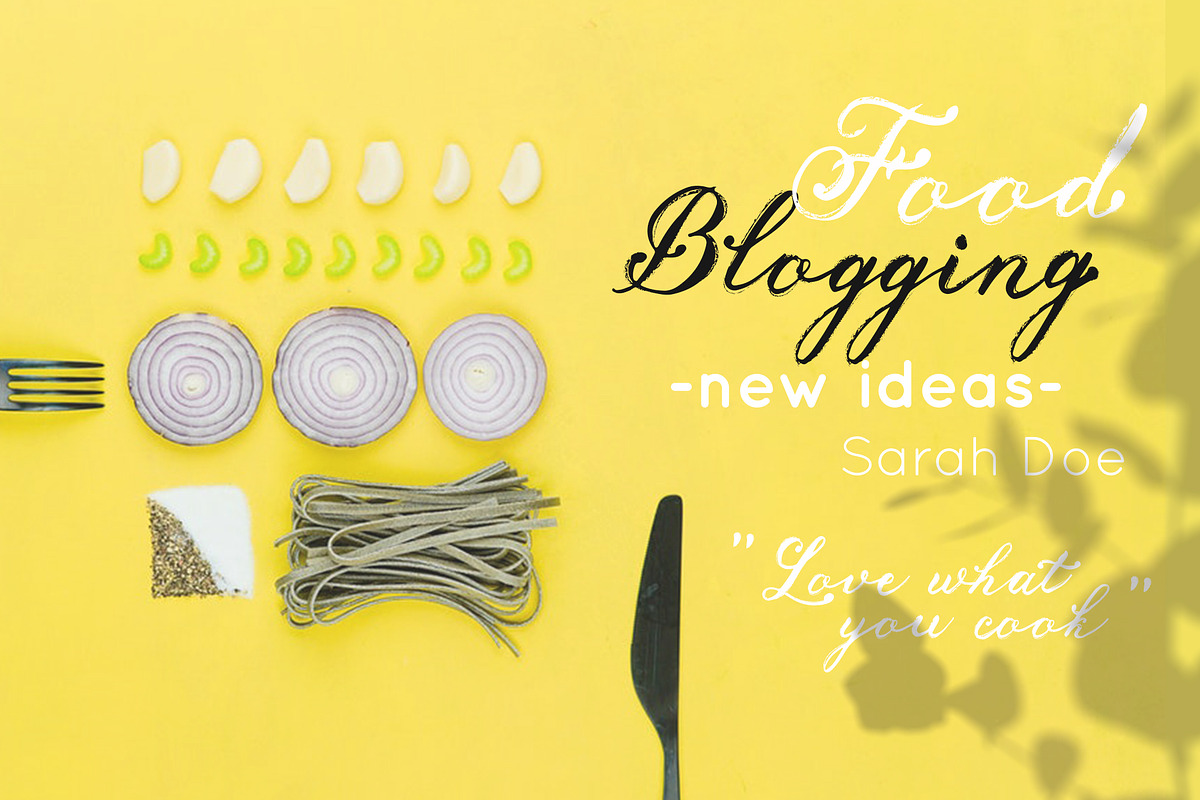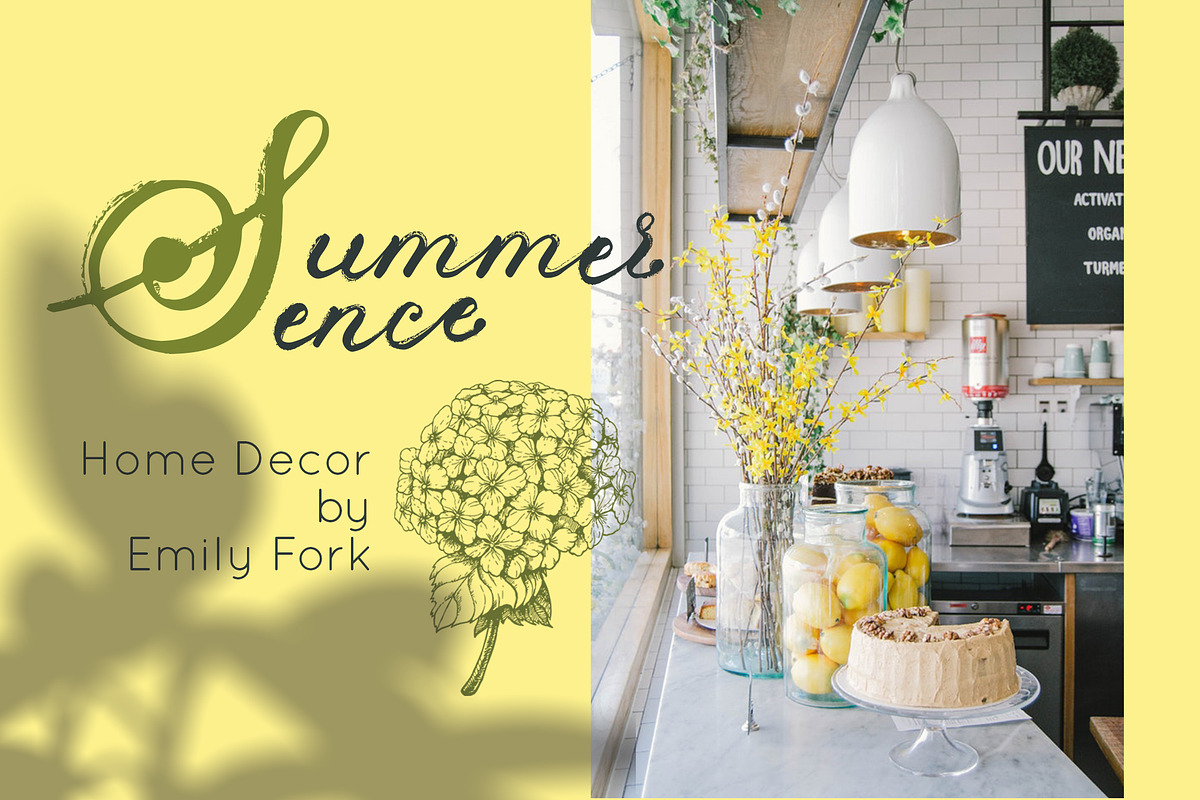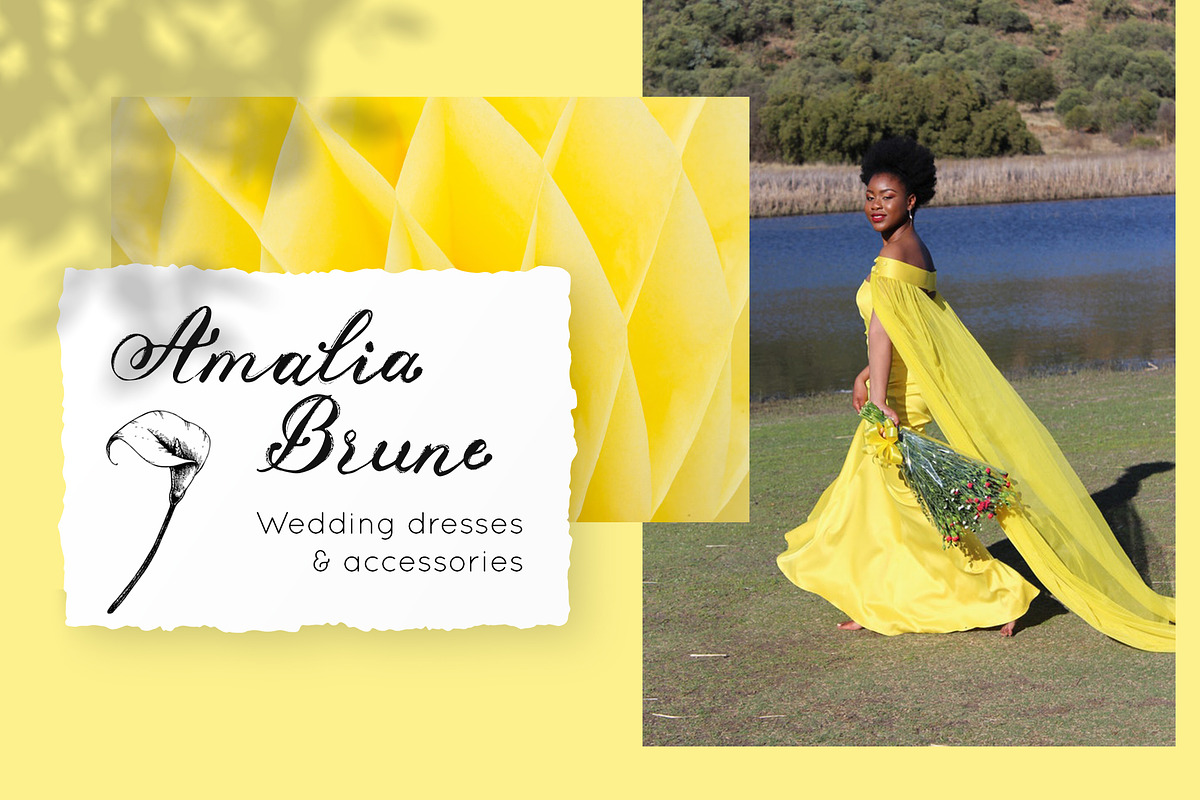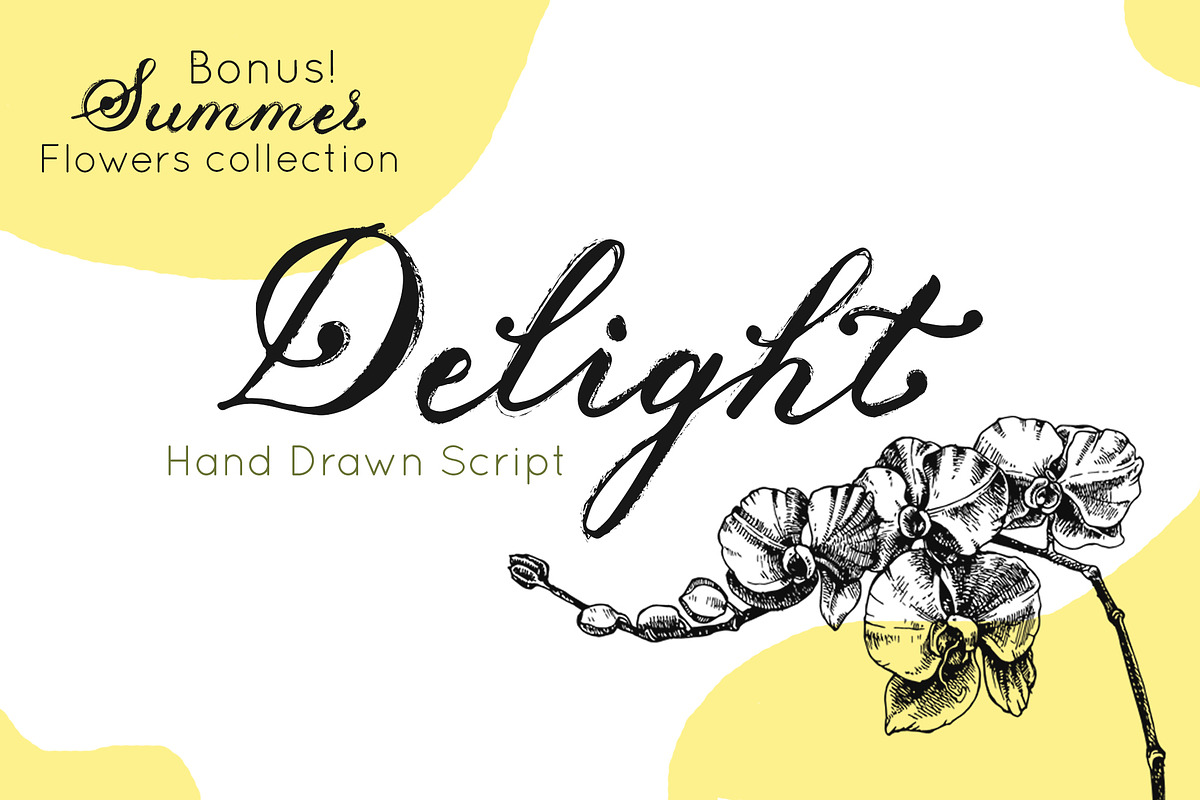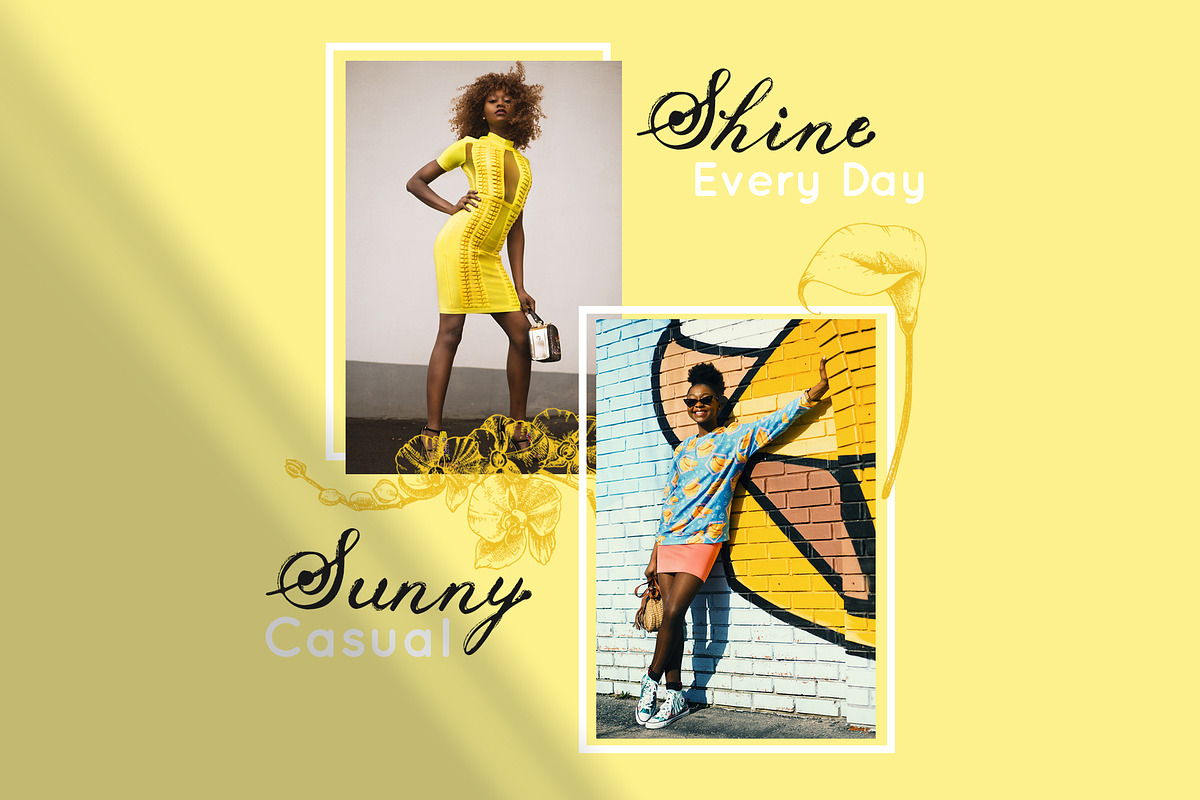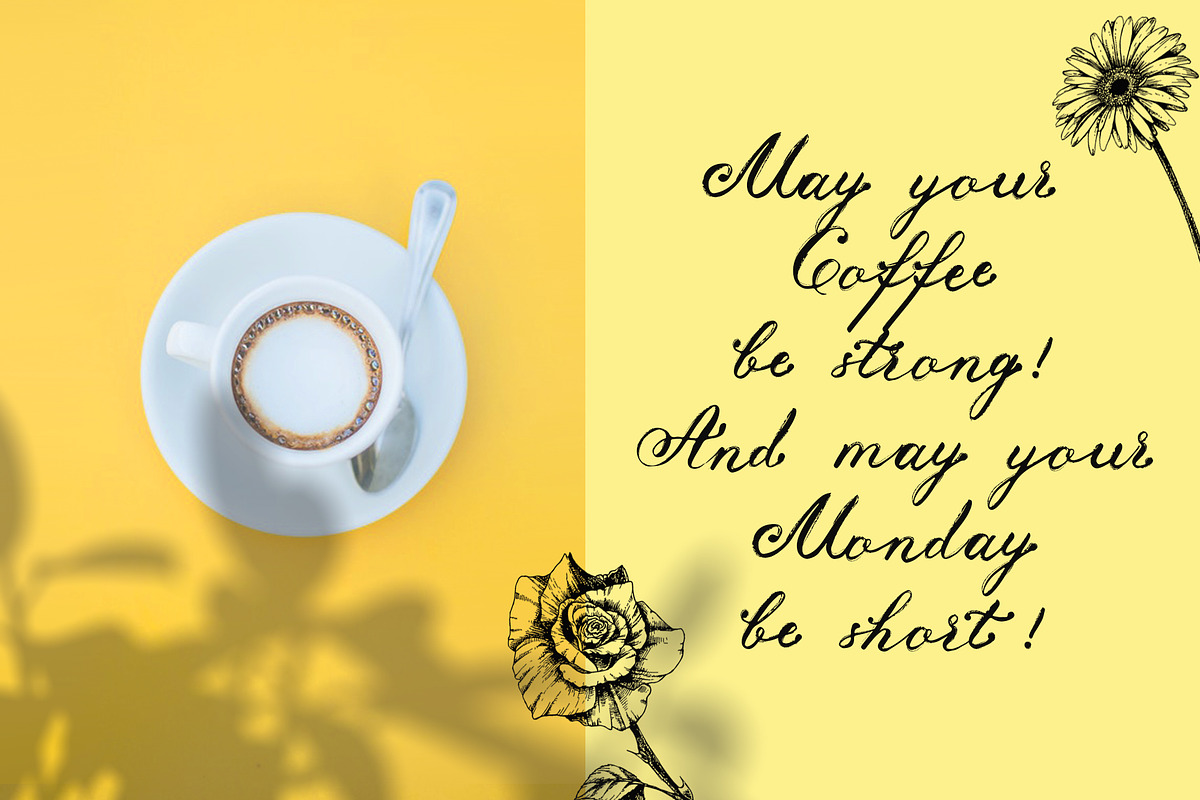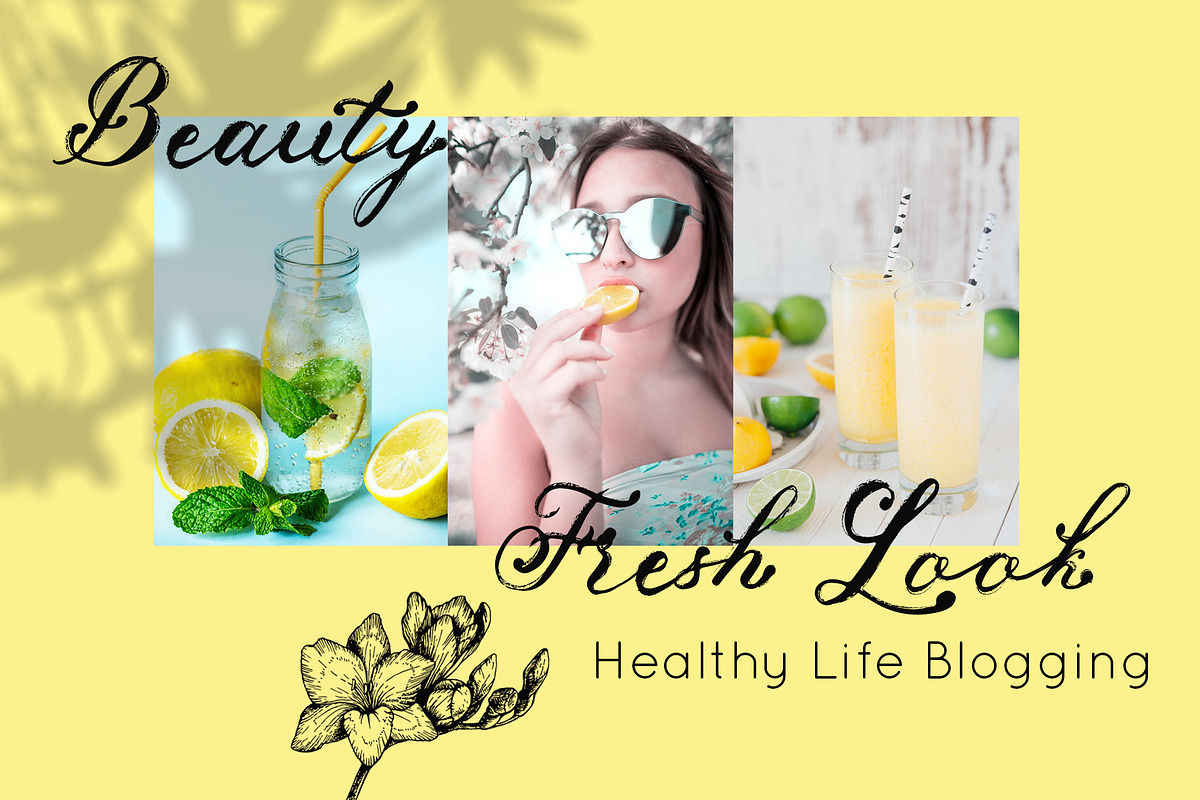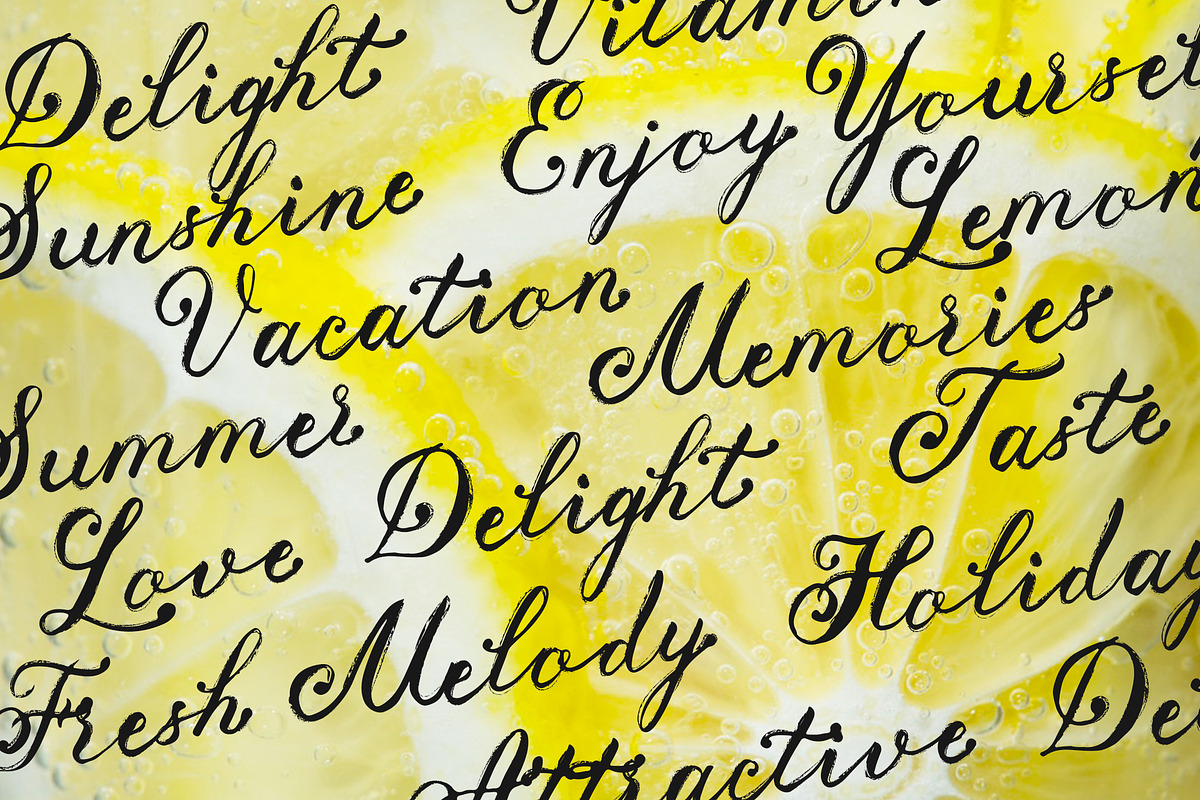
Delight Grunge Handwritten Font
Delight handwritten font with summer scetched flowers
Summer is on the air. My new Delight font reflects the warmest feelings and colors of this wonderful season. It will help you to create special and touching typographical design for every day or the happiest day in life. It is really new, universal and modern font with handdrawn flowers.
Delight font has grunge and regular versions. It is perfect for multiple contexts. Works great in posters, logos, headlines, packaging, advertising, branding and so much more. This font will easily help you to create the best romantic, elegant or dynamic designs. This font will help you to make your projects trully hand-painted realistic and natural.
Delight and Delight Regular font have uppercase and lowercase letters, numbers & basic punctuation, multiligual support (French, German, Italian, Norwegian, Portuguese, Spanish, Swedish, Swiss German).